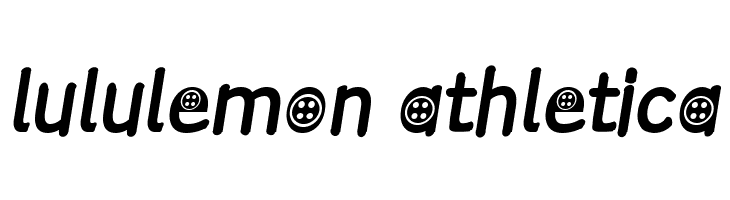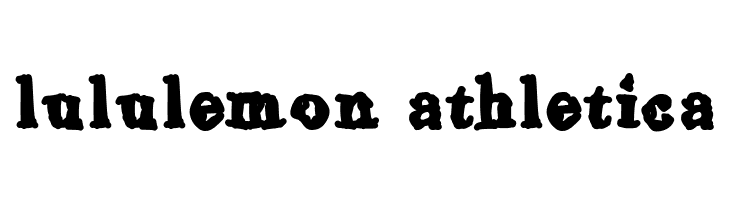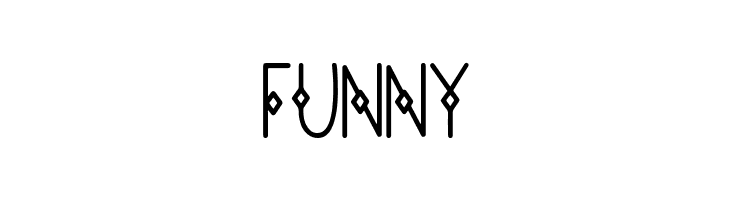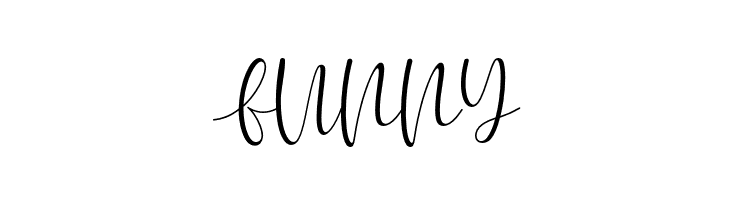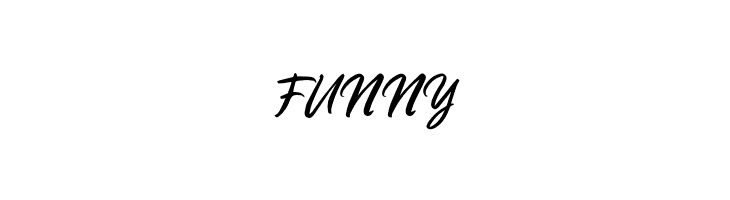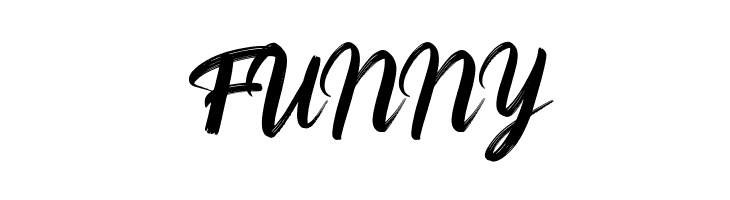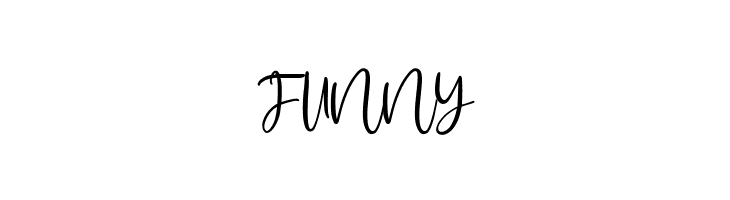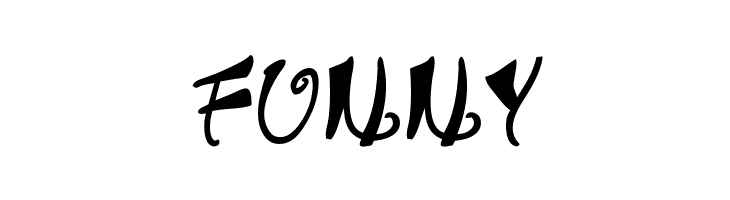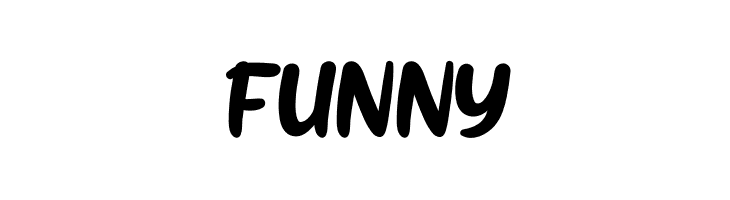
• Buttersoy Free Regular
A lively and expressive handwritten font with fluid, dynamic strokes.
• ButterSwanyFreePersonalUse
A cursive, handwritten-style font with elegant, flowing strokes.
• Buttervill
A playful, elegant handwritten script with thin, flowing strokes.
• Butterzone DEMO Regular
A playful, hand-drawn font with bold, rounded letterforms and a whimsical style.
• Buttey Honey
A flowing, cursive font with elegant, interconnected strokes.
• Buttey Honey
A playful and elegant script font with flowing, cursive letterforms.
• Buttgi Personal Use
A bold, expressive script font with high contrast and dynamic style.
• Buttherfly
An elegant script font with graceful, flowing lines and delicate curves.
• Buttle
A dynamic, expressive handwritten font with fluid strokes and a brush-like texture.
• buttlint
A bold, playful font with a hand-drawn, whimsical style.
• Buttmunch
• Button
A bold, playful font with a 3D shadow effect and rounded characters.
• Button Box
A playful, decorative font with geometric elements and a modern touch.
• Button Box
A playful, geometric font with decorative uppercase and casual lowercase letters.
• Button Shield Personal Use Only
A bold, expressive script font with a dynamic handwritten style.
• ButtonButton
• ButtonButton AOE
A decorative symbol and shape dingbat set.
• ButtonHilightFLF
A bold, geometric font with strong horizontal lines and a modern aesthetic.
• Buttoni
A bold, rugged font with a vintage, distressed style.
• ButtonPlainFLF
A bold, geometric font with a modern, industrial aesthetic.
• Buttons